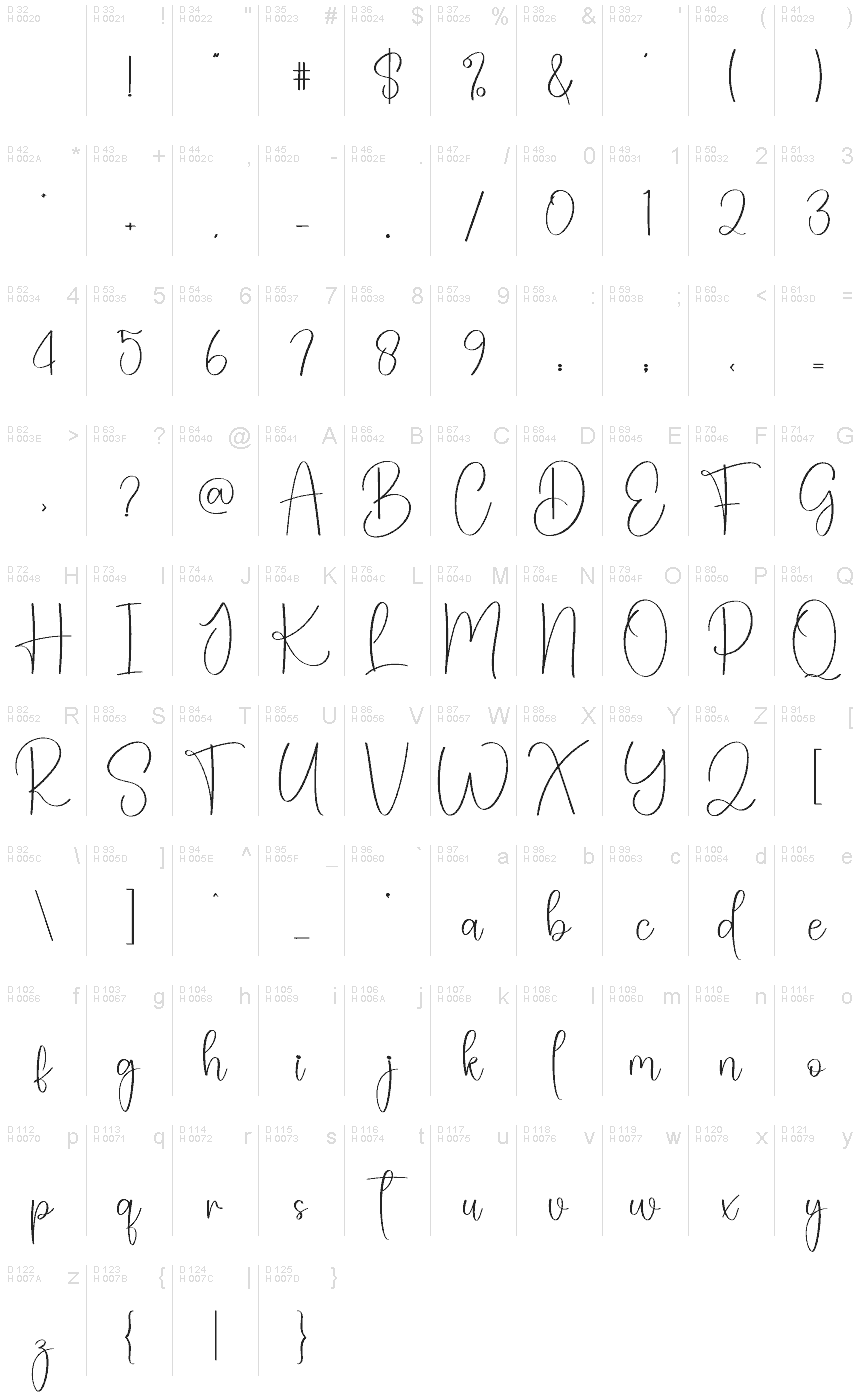
Surfingboard
Surfingboard font from Scratchones is a light handwritten beauty with charm, elegance, and flair. The lines within this typeface have expressive motion suitable for powerful branding designs for brand names or original logos. Surfingboard has an elegance that continues to present itself throughout the body of text written in any project.